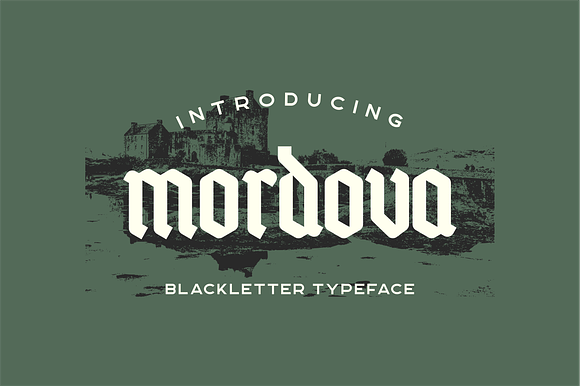
Mordova Blackletter Typeface
Mordova blackletter typeface combining modern and classic typography style.
Why Mordova Blackletter Typeface is worth a look
Mordova Blackletter Typeface by 24Design Studios fits naturally into Branding, posters, packaging, typography.